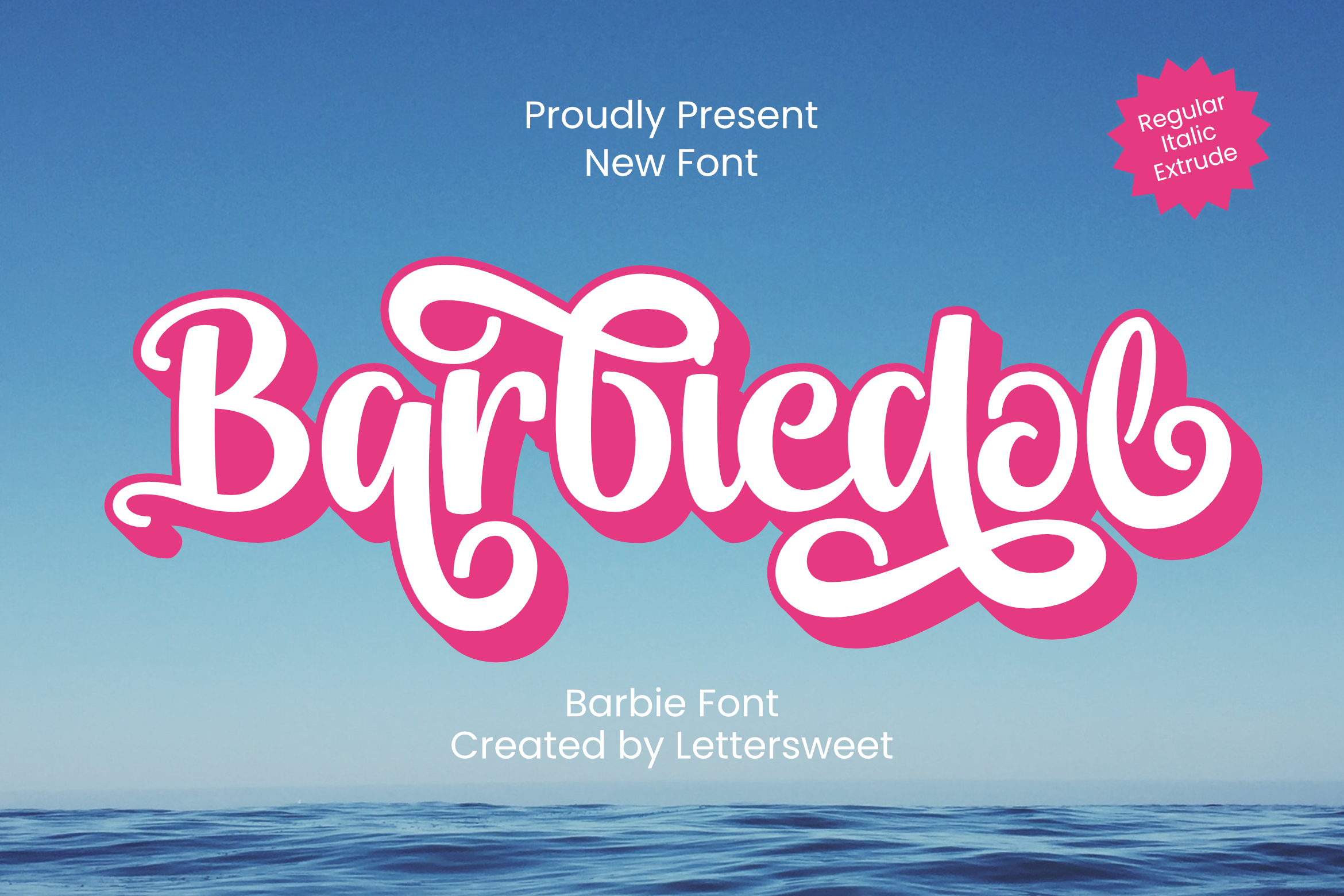
Barbiedol - Script Barbie Font Font
About Barbiedol - Script Barbie Font
Barbiedol is a script font inspired by the Barbie movies. The Barbiedol font has many alternative fonts. So the design can be more attractive.